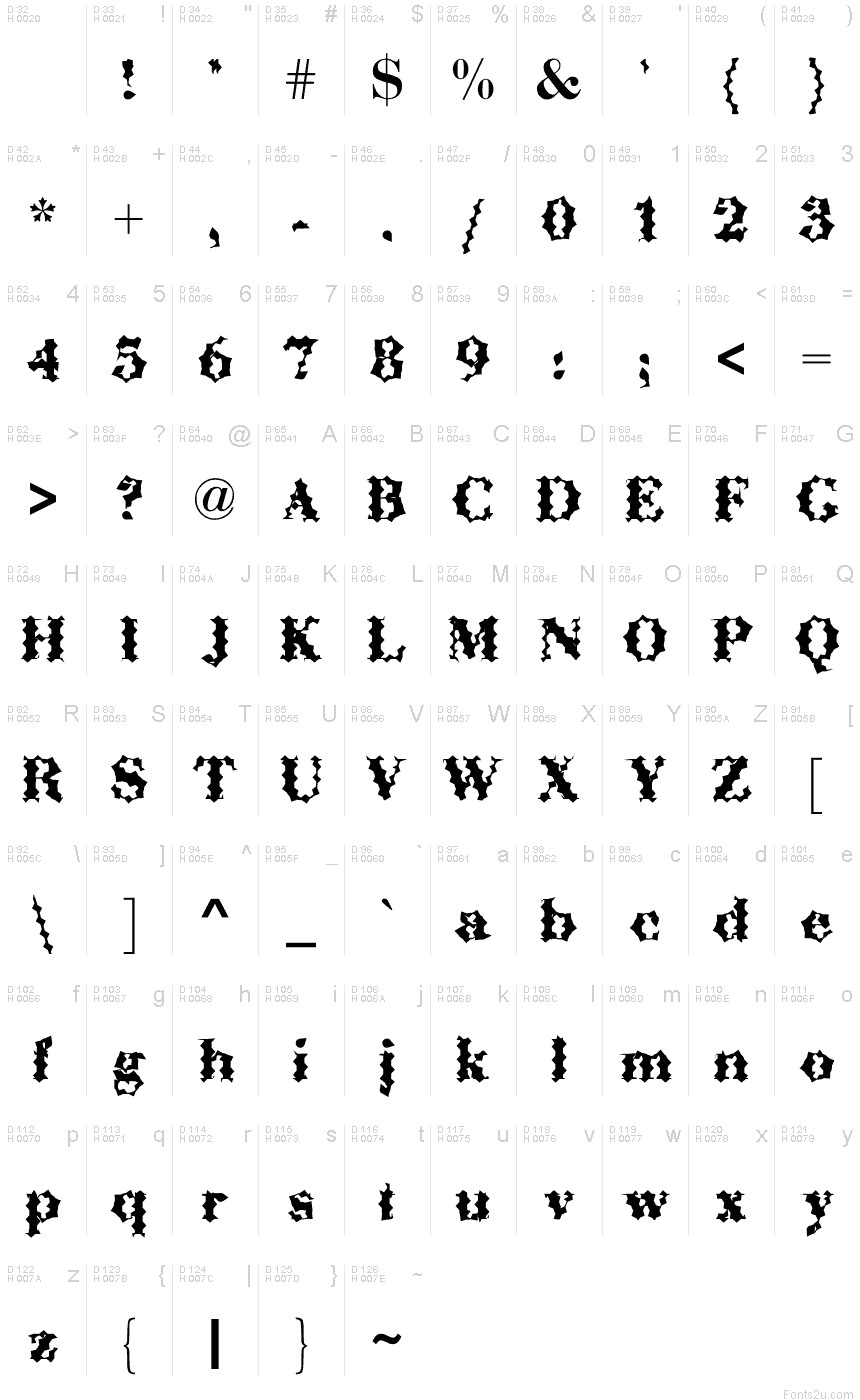
ABCTech Bodoni Cactus
ABCTech Bodoni Cactus font by Alltype is a free distorted display typeface that twists the refined ABCTech Bodoni family into something wild and thorny. Classic Bodoni shapes are still there, but they’re overgrown with jagged, cactus-like spikes that feel rough, inky, and untamed. The result is a letterform that’s both legible and wonderfully strange, like a Victorian headline dragged through a haunted desert.
Using ABCTech Bodoni Cactus, your titles instantly gain a gritty, organic edge that grabs attention from across the room. This free font works beautifully for horror posters, Halloween merch, band logos, occult book covers, zines, and edgy packaging. Set it big and give it plenty of breathing room, then pair it with a clean geometric sans for body copy so the spiky texture can really stand out.